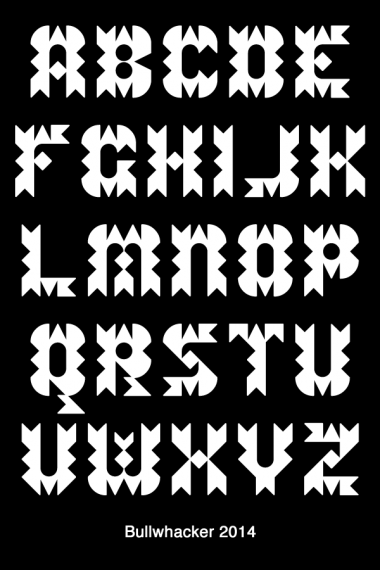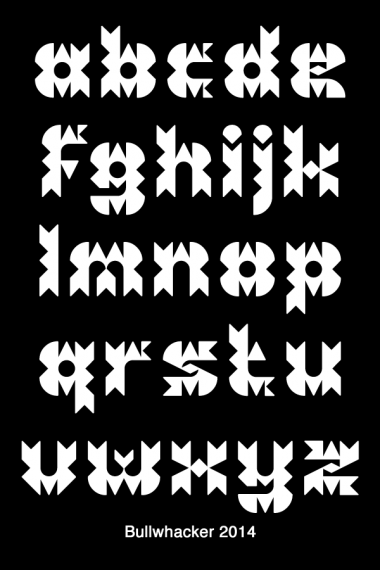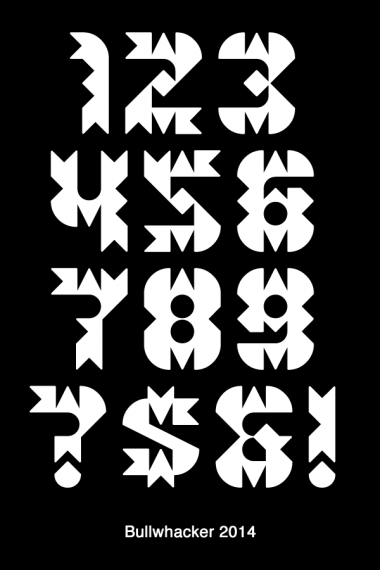
Bullwhacker
No animals were hurt in the making of this font.
Wild West
Stylish! The dots of i,j may need to be more heavier.
Hmm, it's actually too heavy now :) Maybe smth like this:
A simple, but very effective, wild west look.
Your fonts are always so unique. That's why I like them so much. :)
Congrats! I like it a lot!